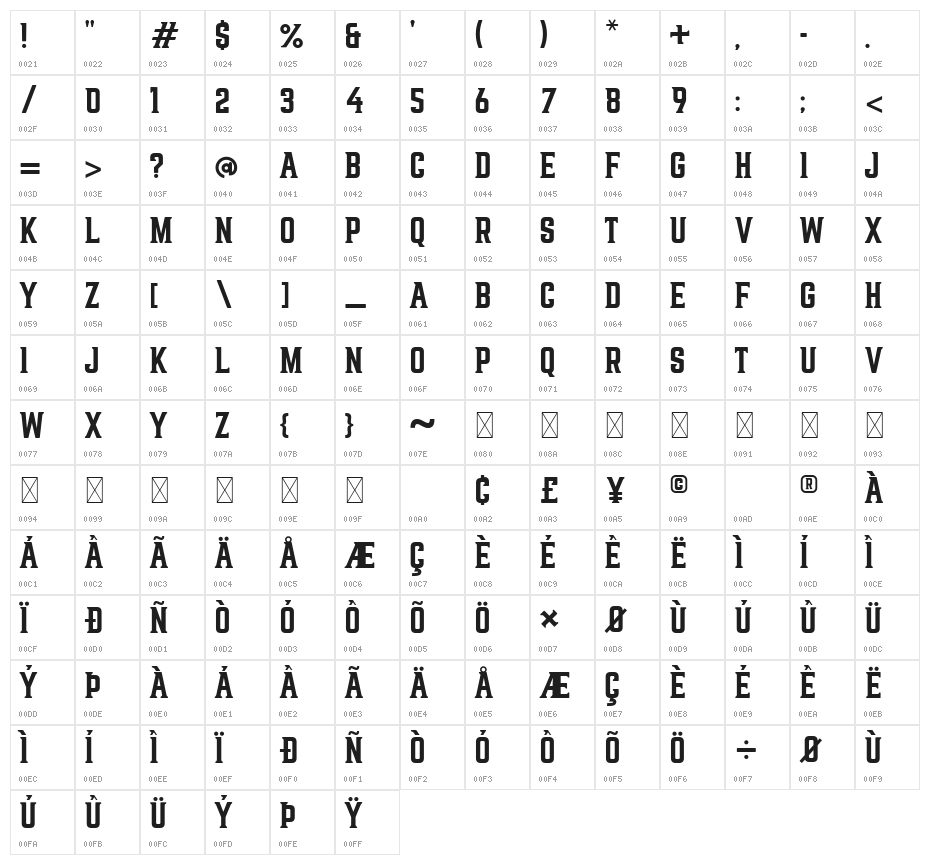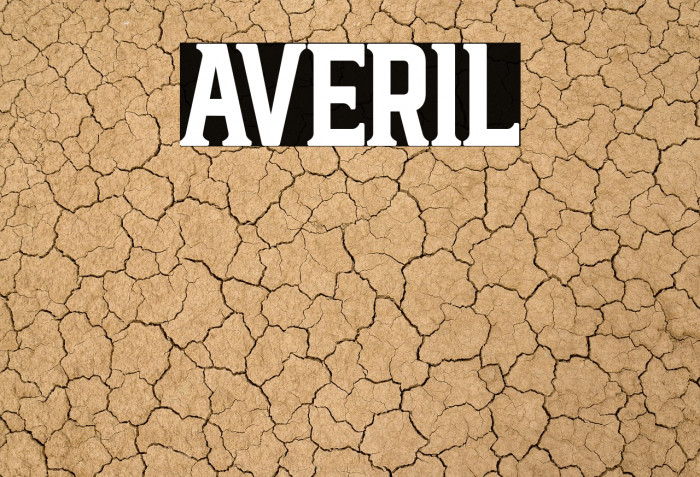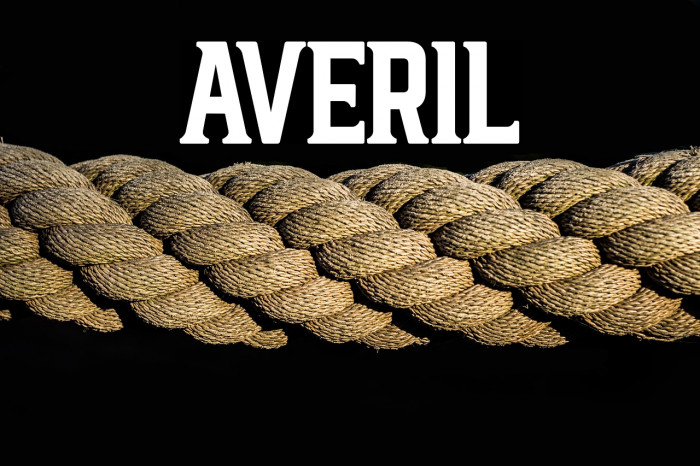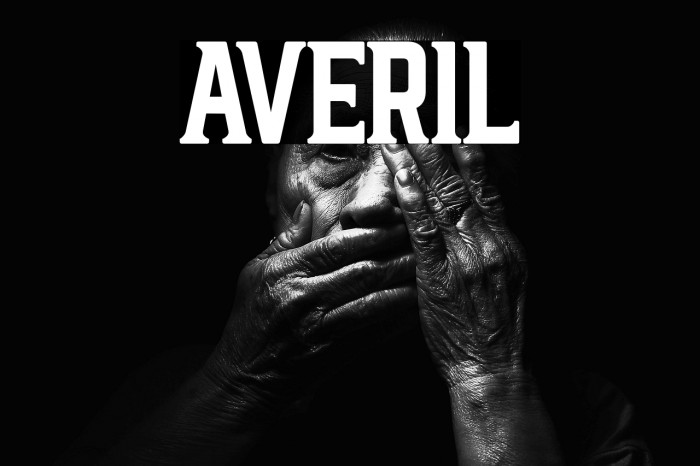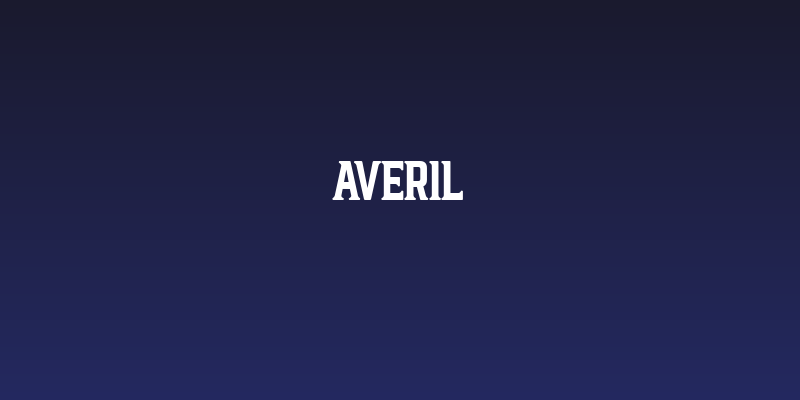
Averil Font
Averil Description
This font features a bold and impactful design with strong, angular serifs that give it a commanding presence. The uppercase letters are tall and slightly condensed, creating a sense of authority and strength. The lowercase letters maintain a consistent style with the uppercase, ensuring readability and cohesion. The numbers are equally bold, making them stand out effectively. Special characters are designed with the same boldness, ensuring they are easily noticeable. This font's overall appearance is reminiscent of vintage poster typography, making it suitable for projects that require a strong, retro aesthetic.
| Proposed Projects | Ideal for vintage posters, headlines, branding, and any project needing a strong, retro look. |